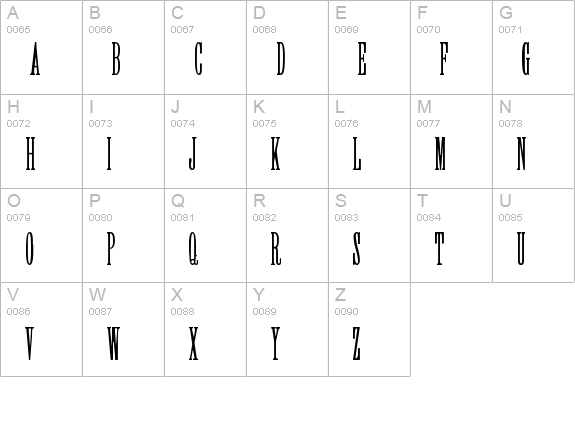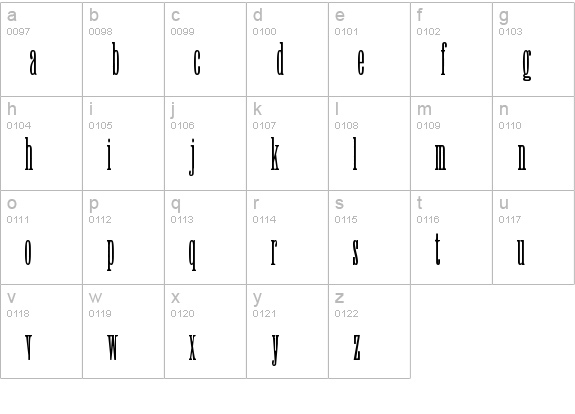
Greer Font Details
Greer font is a stylish and modern typeface that exudes elegance and sophistication. Its clean lines and sleek design make it perfect for a wide range of design projects, from branding to editorial design. The versatility of Greer font allows it to be used in both print and digital formats, making it a valuable addition to any designer's toolkit. What sets Greer font apart is not only its aesthetic appeal but also its accessibility. This font is available for free download at FontsMarket.com, allowing designers to easily incorporate it into their work without any extra cost. With its timeless design and ease of use, Greer font is sure to become a go-to choice for designers looking to elevate their projects with a touch of sophistication.